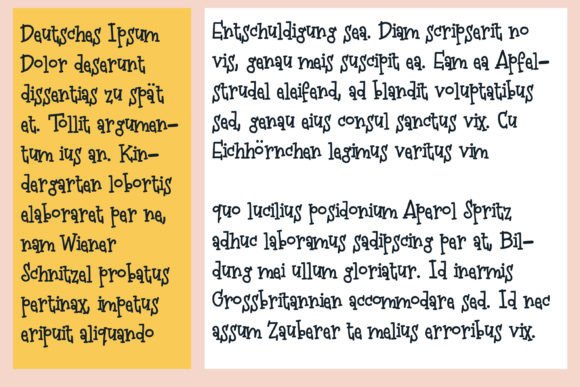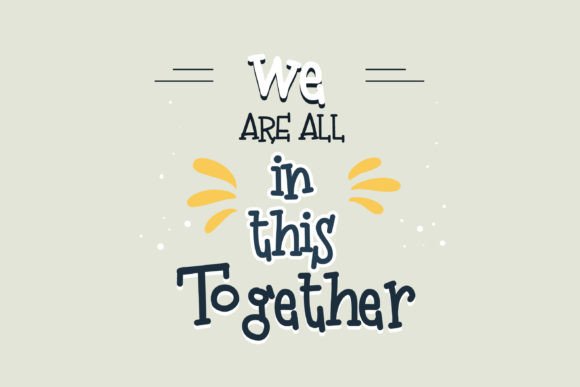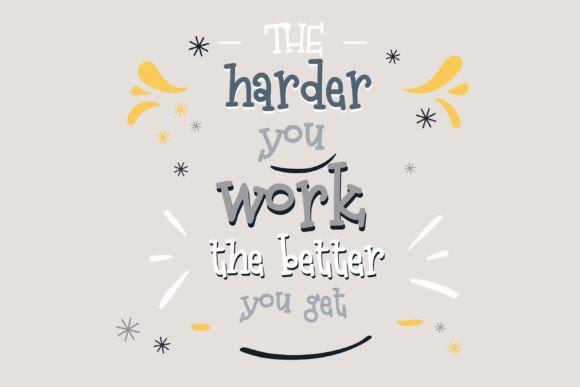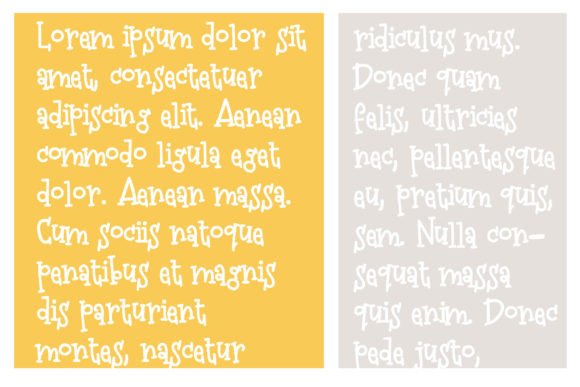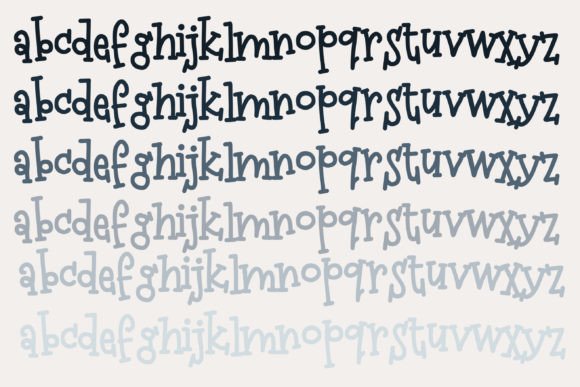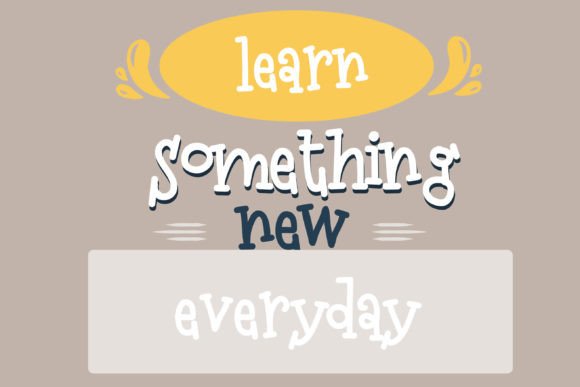
Introduction to Naught Shot Font
This hand-written print is a whimsical print with slab serif throughout.
It is perfect for a wide spectrum of applications such as greeting cards, headlines, and many more Add it confidently to your projects, and you will love the results.
Naught Shot Font offers exceptional quality and versatility, making it a valuable addition to your design toolkit. Whether you’re creating for personal projects or commercial use, Naught Shot Font delivers professional results.